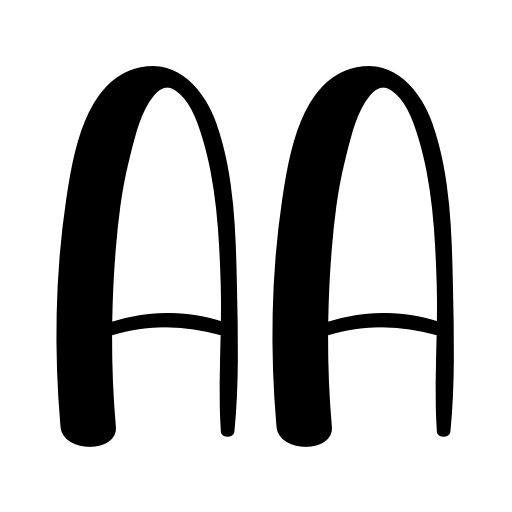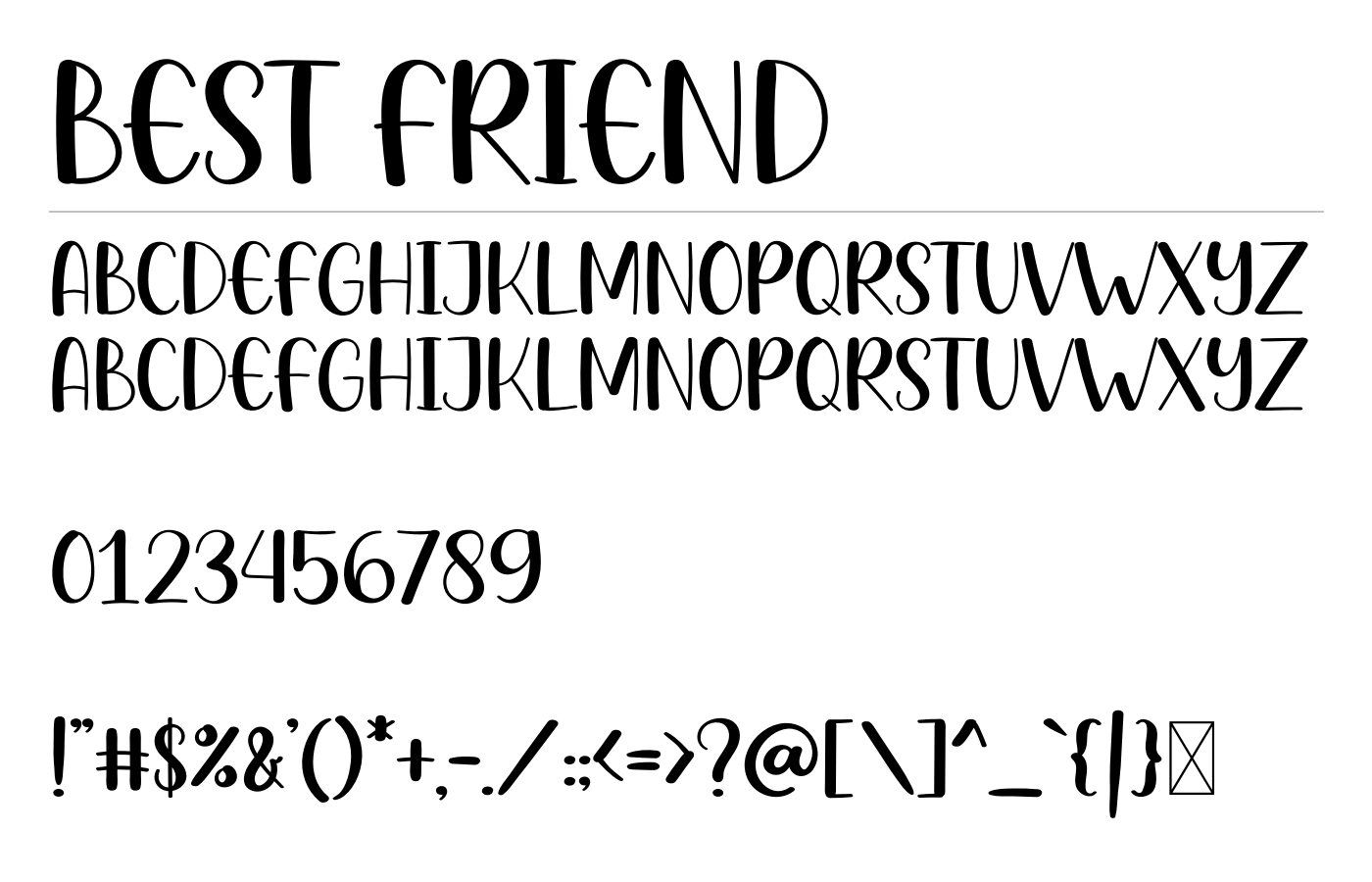
Best Friend Font is a playful and casual sans-serif typeface with a hand-drawn feel, featuring uneven strokes and quirky letterforms that convey warmth and friendliness. Its tall, narrow shapes and organic curves make it perfect for creative projects, children’s books, invitations, and branding that seeks a fun, approachable personality. This font works especially well in headlines and logos where a unique, personal touch is desired.
Best Friend Font
About Best Friend Font